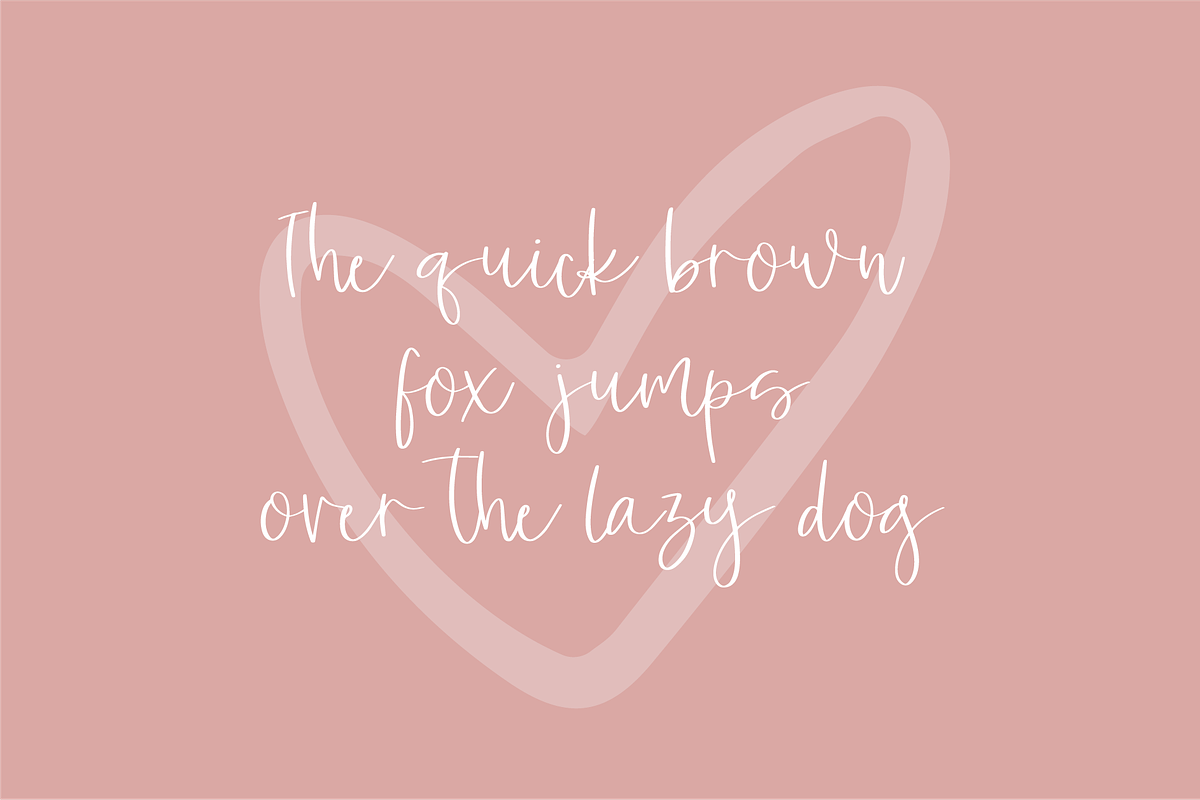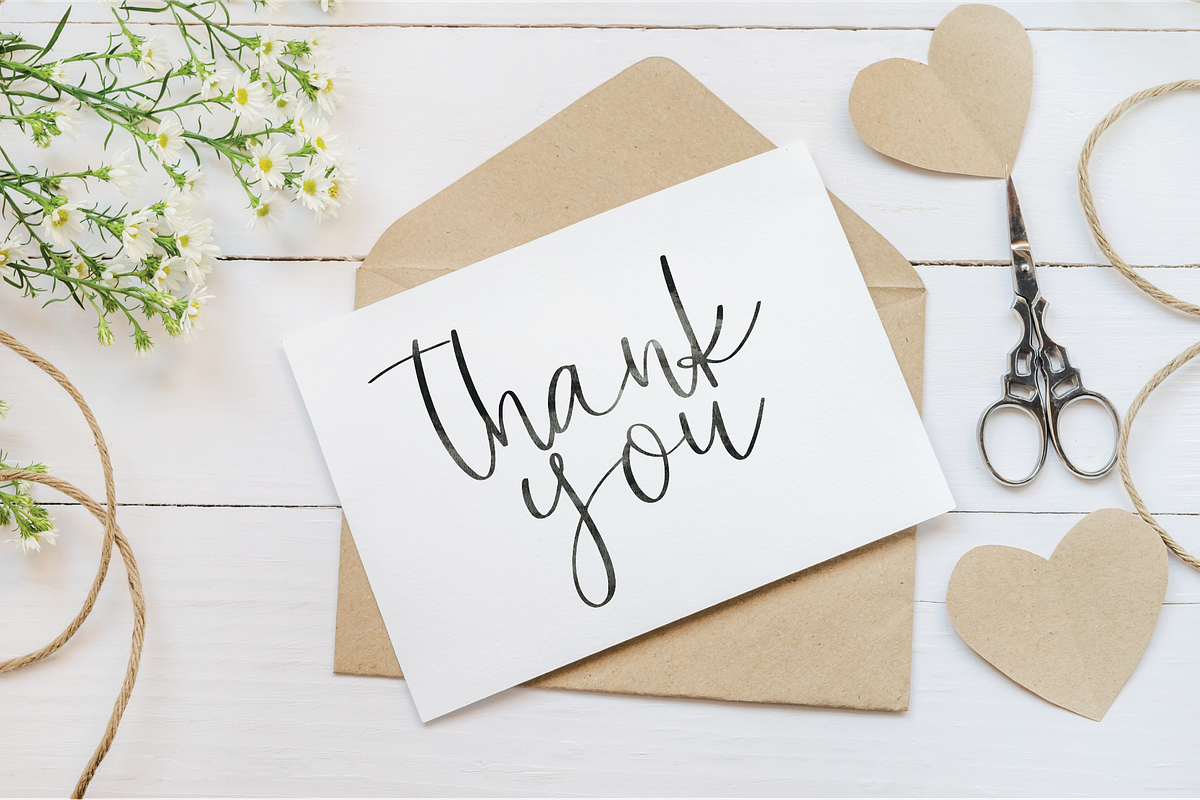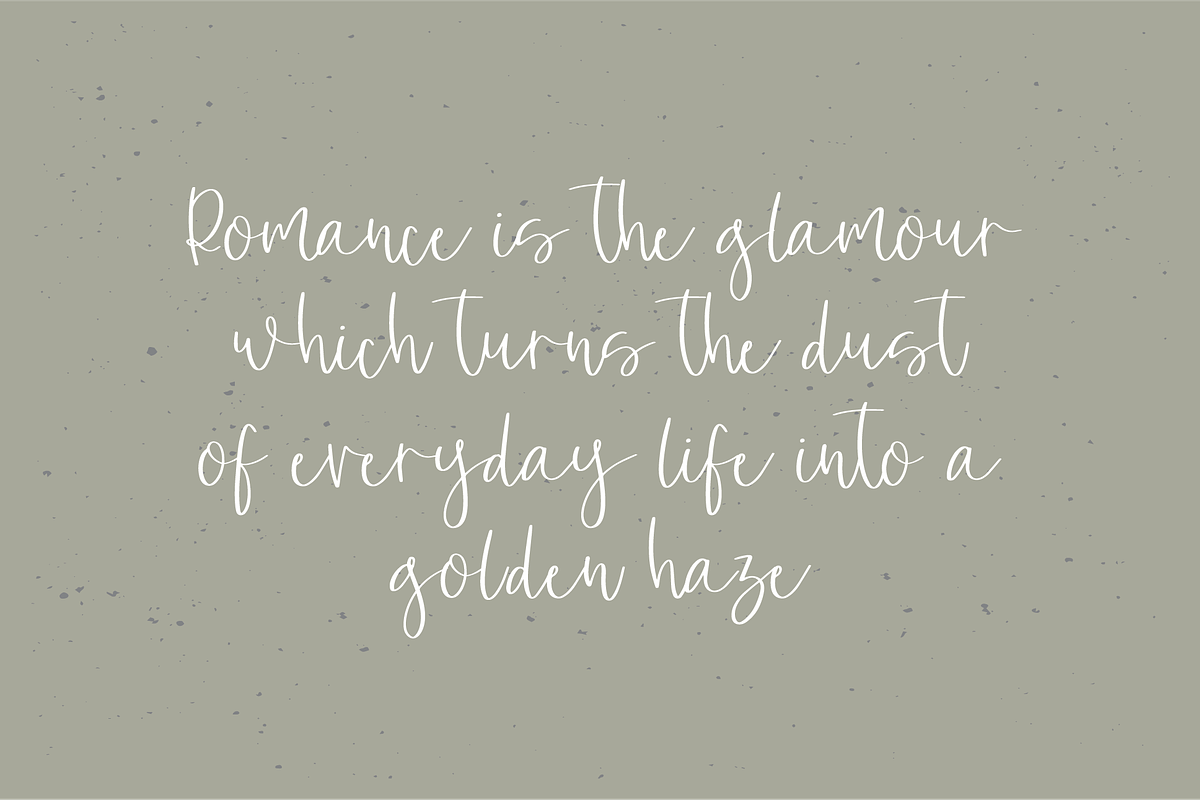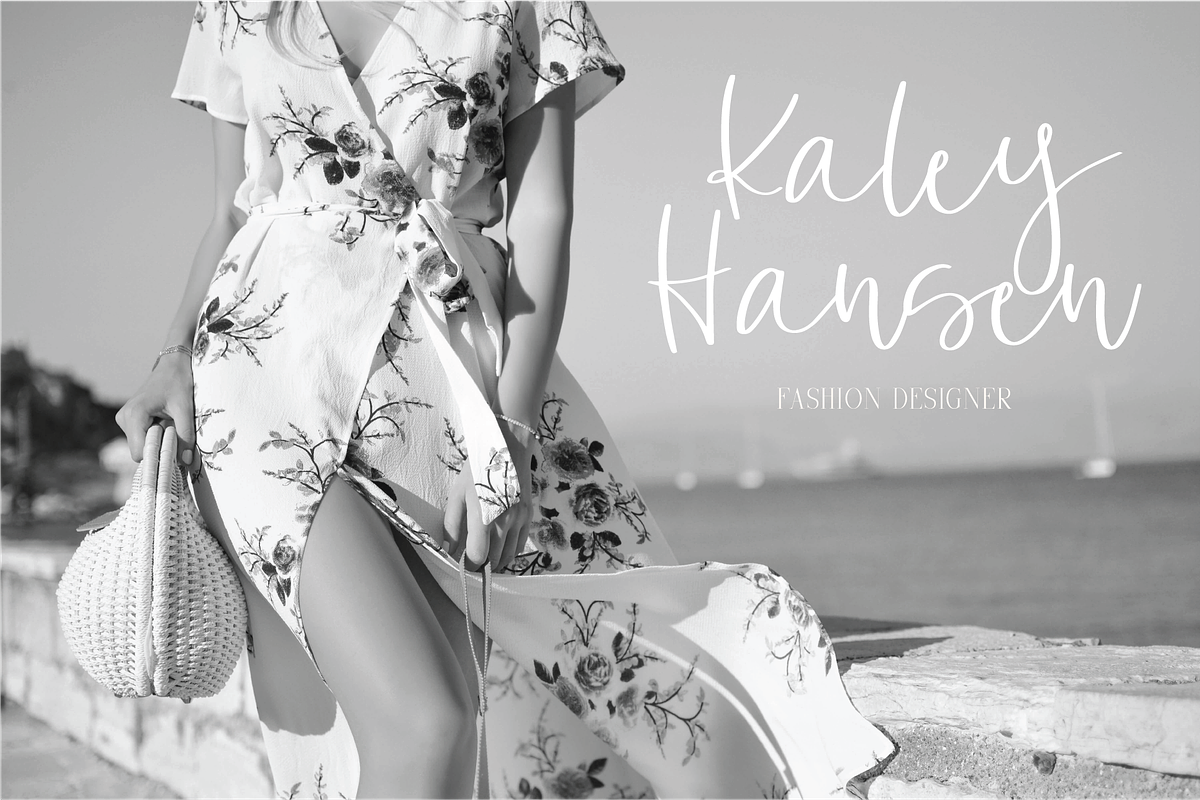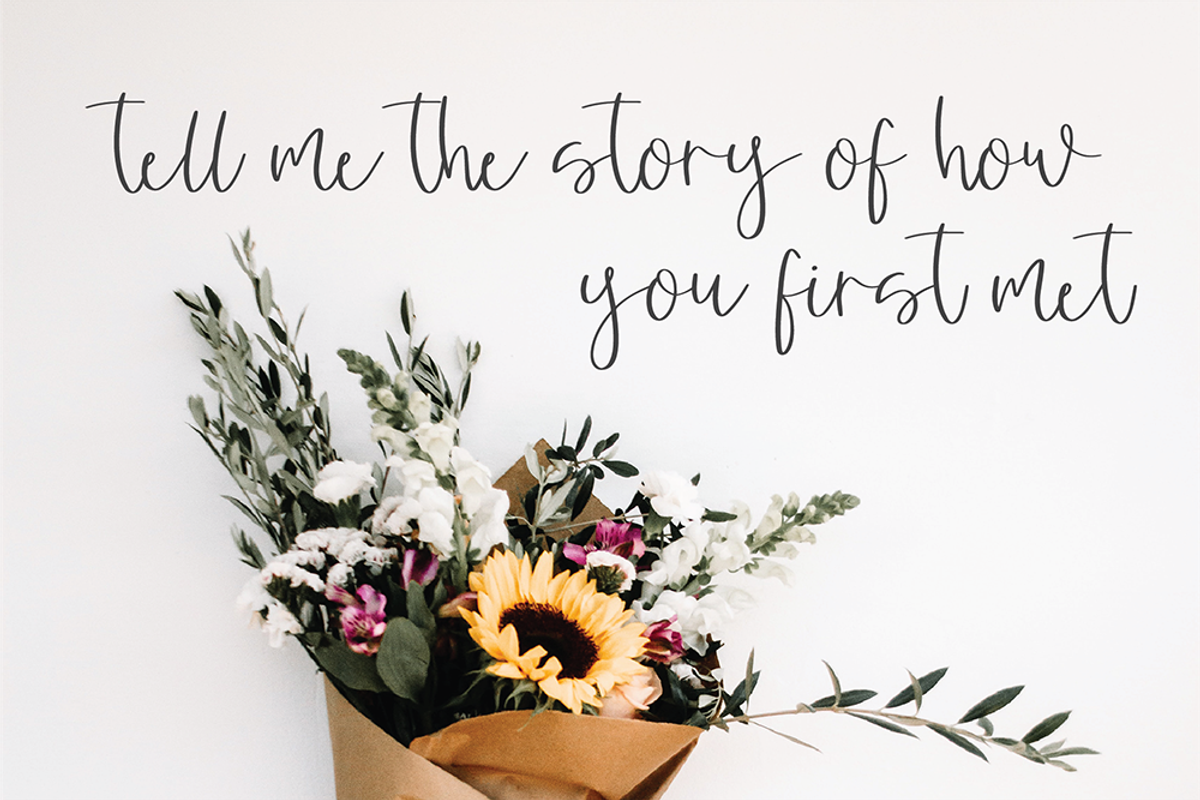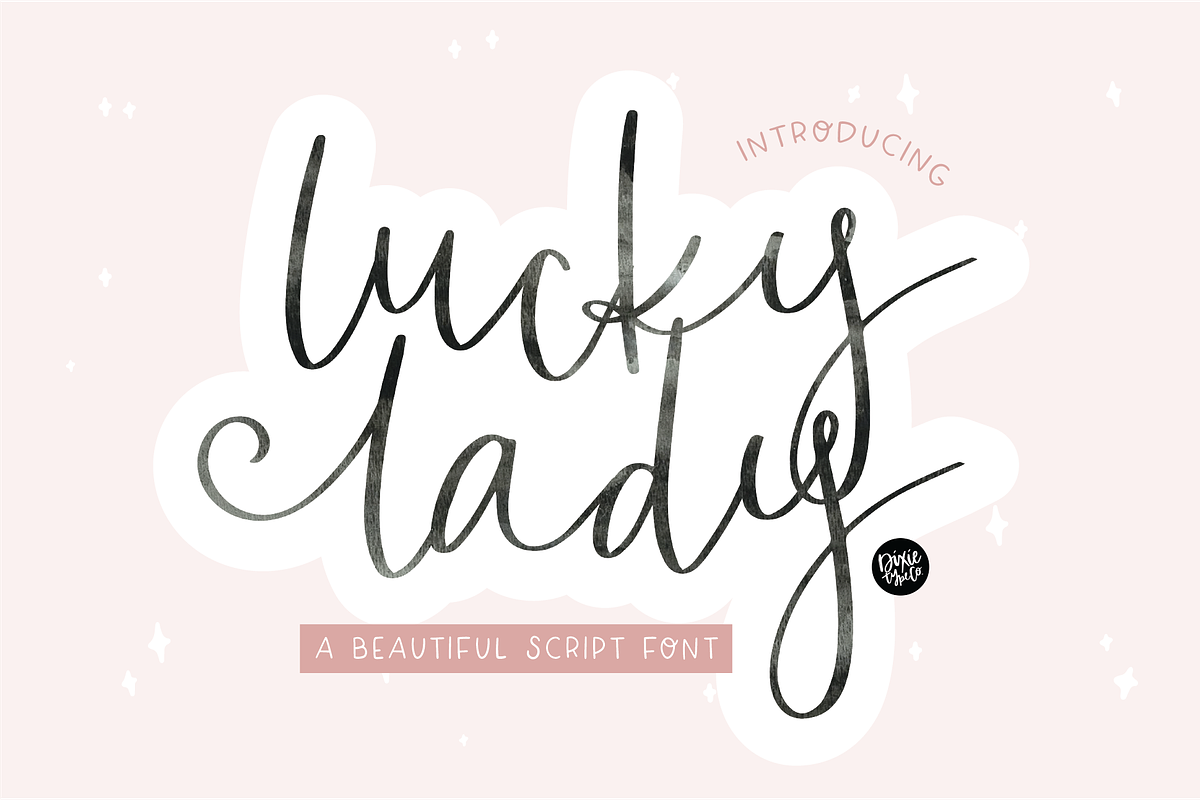
LUCKY LADY a Beautiful Script Font
"Lucky Lady" a farmhouse calligraphy script font
{ A typographic font hand-lettered with love by Dixie Type Co. }
Lucky Lady is a beautiful script hand lettered font. This font is great for wedding invitations, home decor, and more.